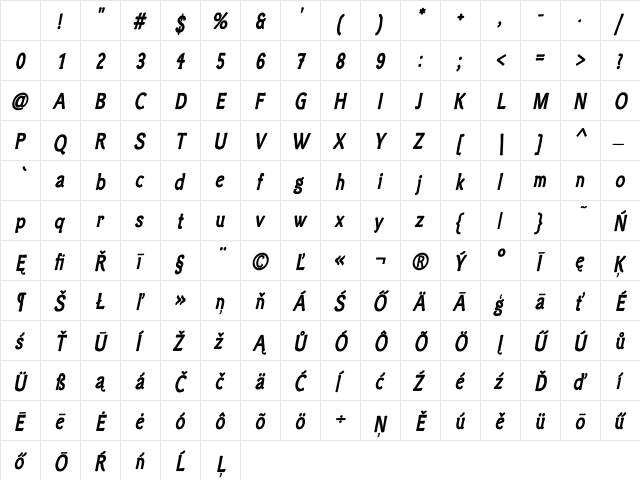
Complete ClicheeCE BoldOblique glyph index. Displaying only characters natively supported by ClicheeCE BoldOblique font.
ClicheeCE is a composed and adaptable typeface that performs quietly and consistently across a wide range of design contexts. The slanted form adds forward momentum and visual energy. Its bold stroke weight gives it real presence on the page.